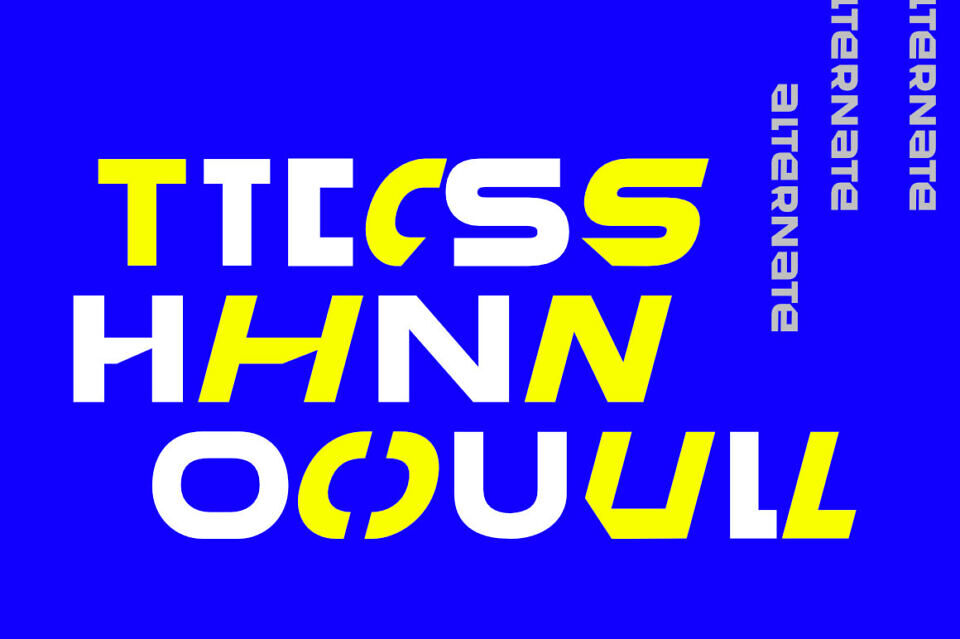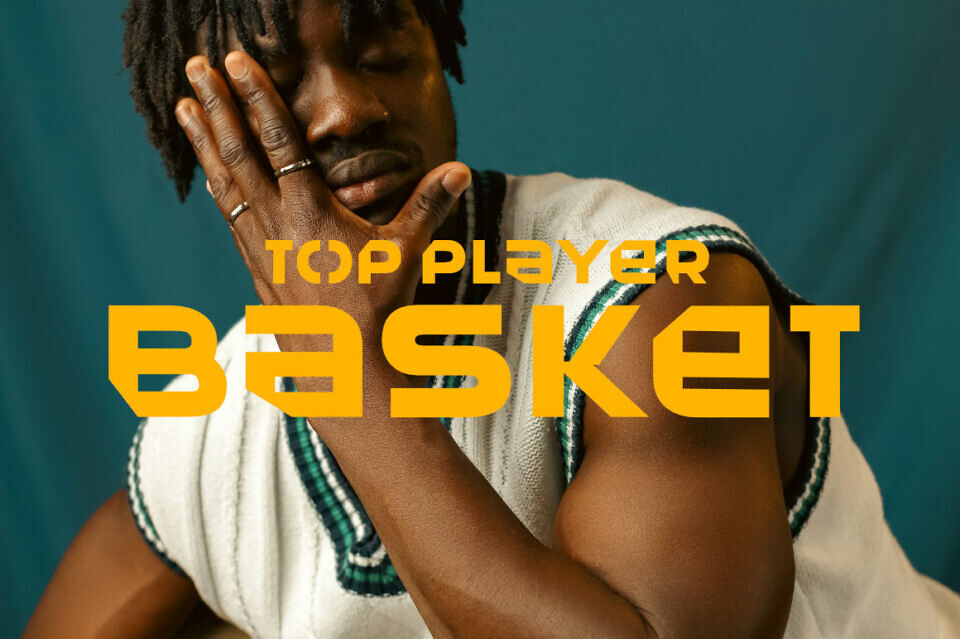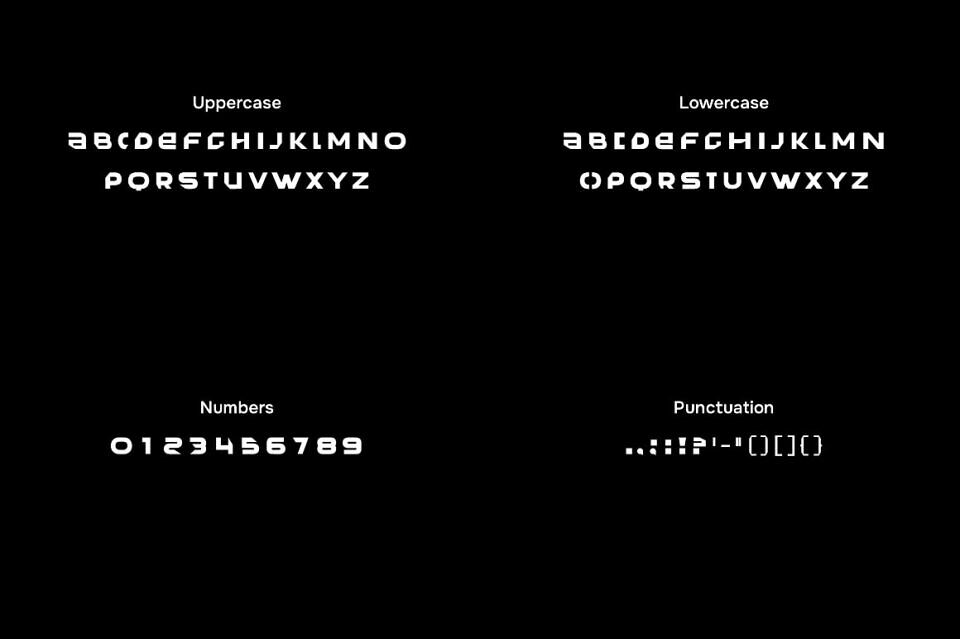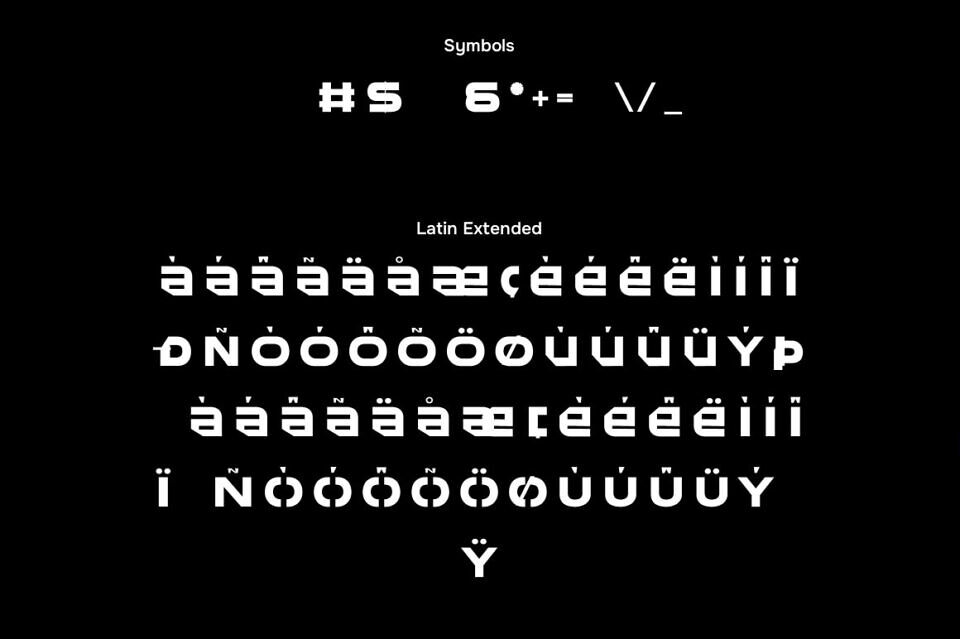
Title Ren Font
Title Ren is a sleek, futuristic logo font designed by ffeeaarr. It offers two styles—Regular and Italic—each featuring 46 glyphs and 238 characters.
Its minimalist, techno-inspired aesthetic makes it ideal for branding, digital interfaces, and modern design projects.